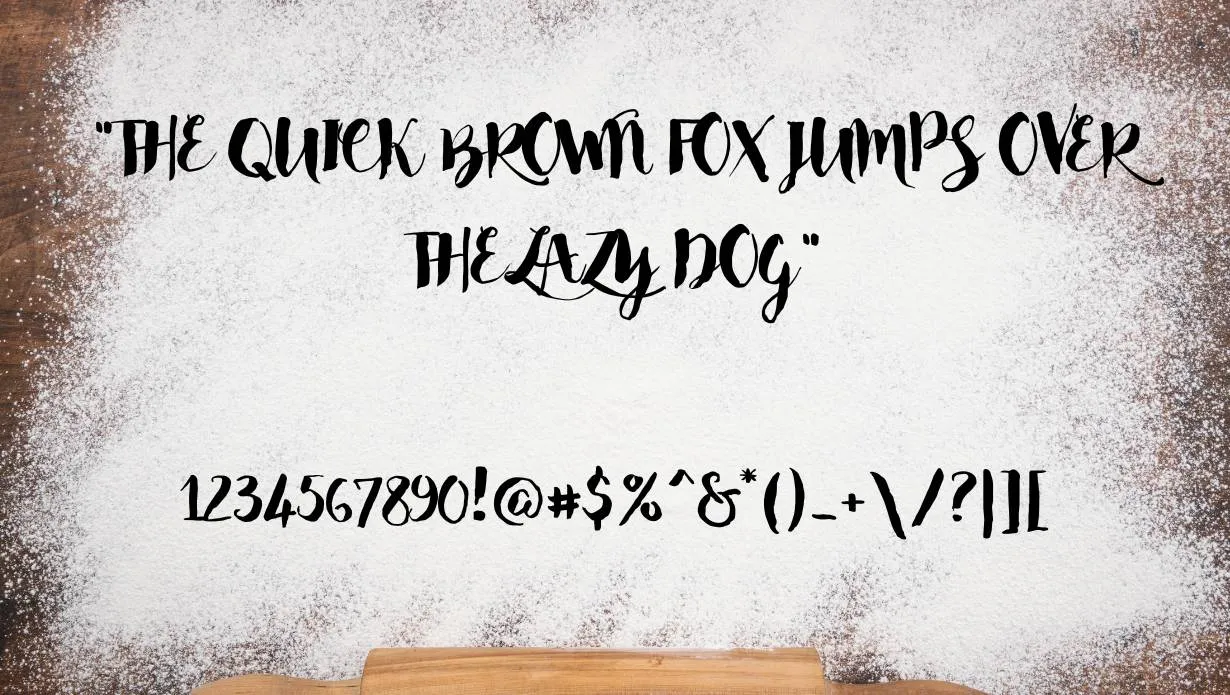
Bakery Font is a playful and decorative typeface known for its whimsical and imaginative design. It’s often used in projects aiming to evoke a sense of fun and creativity, such as bakery branding, children’s books, and creative advertising.
The font’s unique and charming letterforms add an element of whimsy and joy to your design work.
| Name | Bakery Font |
| Designer | StereoType |